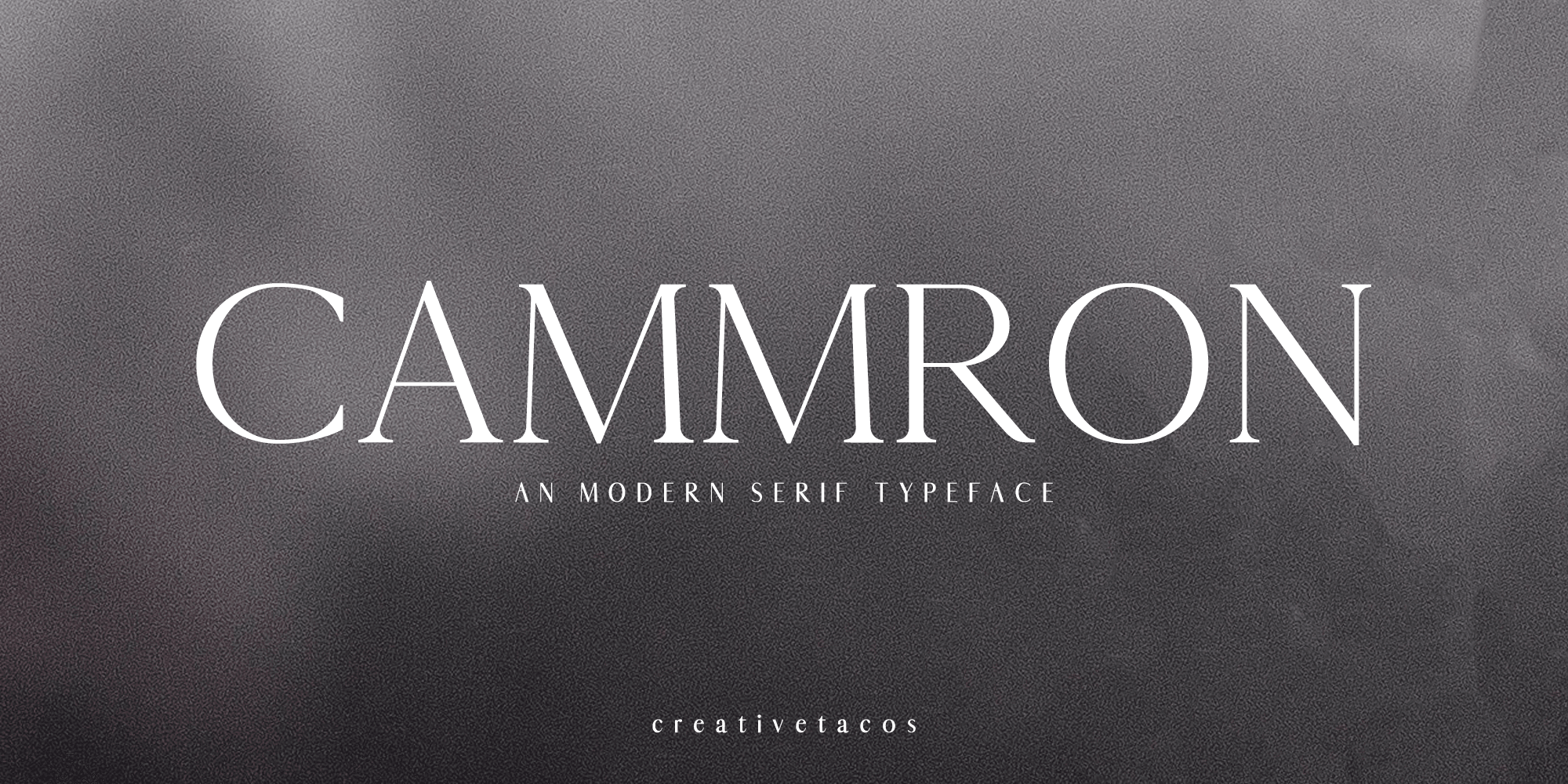
Cammron Font is perfect for contemporary design studios, modern creative agencies, sophisticated brand identities, sleek product packaging, professional portfolio presentations, cutting-edge digital interfaces, refined corporate communications, innovative startup branding, artistic gallery exhibitions, and progressive marketing campaigns. This contemporary typeface excels in applications where modern sophistication and creative innovation need to be communicated with refined elegance and forward-thinking design that embodies the essence of contemporary visual culture and the sophisticated aesthetics found in progressive design thinking and creative excellence.
What makes Cammron Font exciting is its remarkable ability to balance contemporary innovation with timeless sophistication through its thoughtfully designed letterforms that project both creative freshness and professional reliability in equal measure. The font embodies the spirit of modern design excellence with its refined construction and forward-thinking proportions that suggest the careful consideration and innovative thinking that characterize cutting-edge creative work. Its precisely crafted character details and sophisticated personality create an atmosphere of creative confidence that resonates with designers, creative professionals, and progressive organizations who understand the importance of projecting both innovation and credibility in competitive creative markets.
The Cammron Font family typically includes Light, Regular, Medium, and Bold weights, each maintaining the signature contemporary characteristics and sophisticated appeal. Some versions offer graceful Italic variants that enhance the flowing modernity, alternative character sets with creative symbols and design elements, and specialized treatments that amplify the innovative aesthetic. The family may also include condensed styles for efficient modern layouts and display cuts optimized for maximum creative impact in design and branding applications requiring authentic contemporary sophistication and creative credibility.
Whether you're creating modern brand identities, creative portfolio materials, or innovative design communications, Cammron Font Free Download delivers the perfect contemporary sophistication your creatively-focused projects deserve. Its modern character and refined styling make it an invaluable choice for design agencies, creative studios, and progressive brands working in contemporary design, creative services, and innovative branding sectors where authentic creative sophistication and forward-thinking aesthetics are essential for establishing leadership in competitive creative markets and attracting clients who value both innovation and professional excellence.